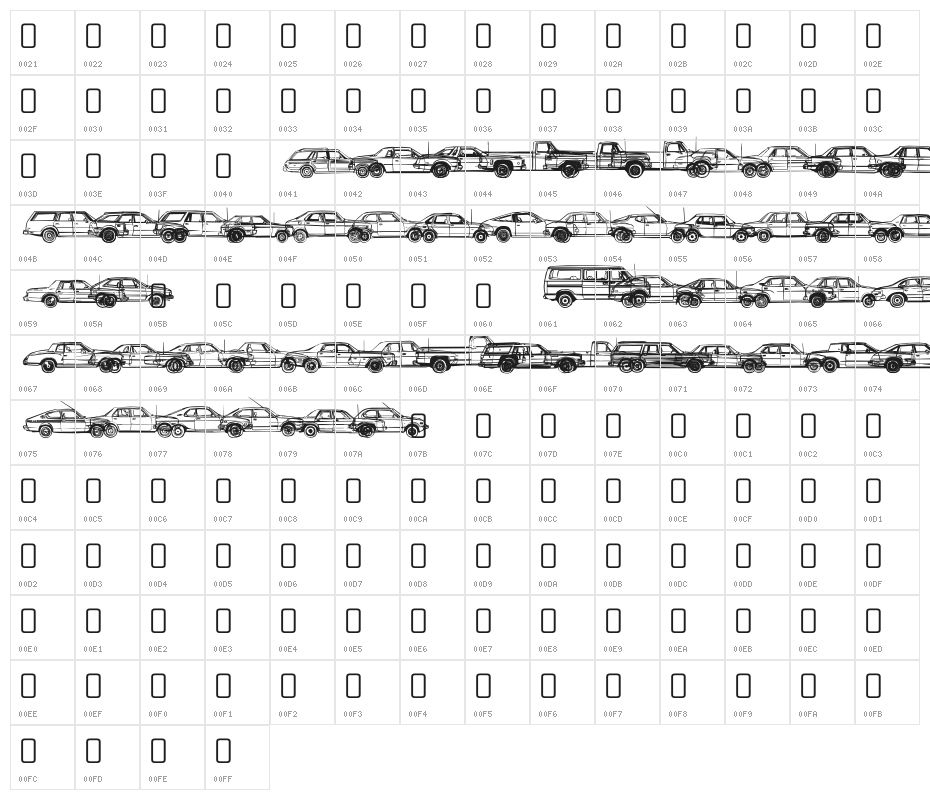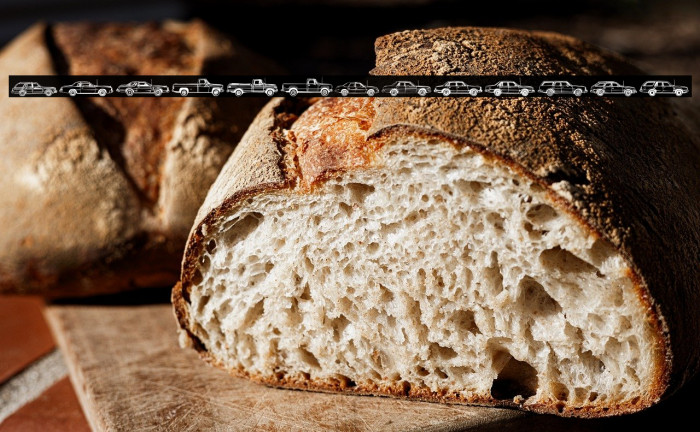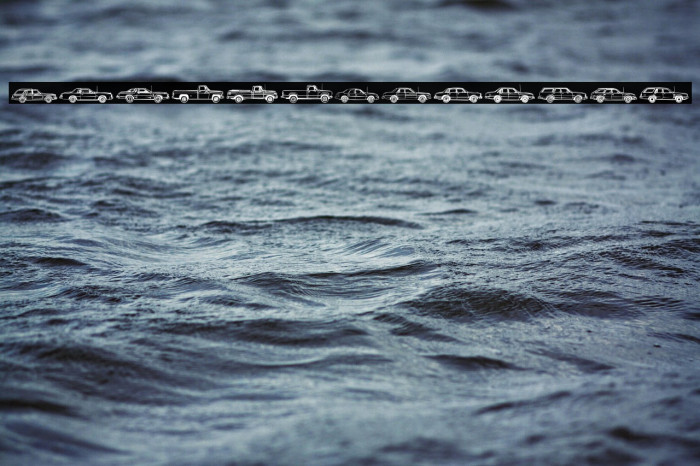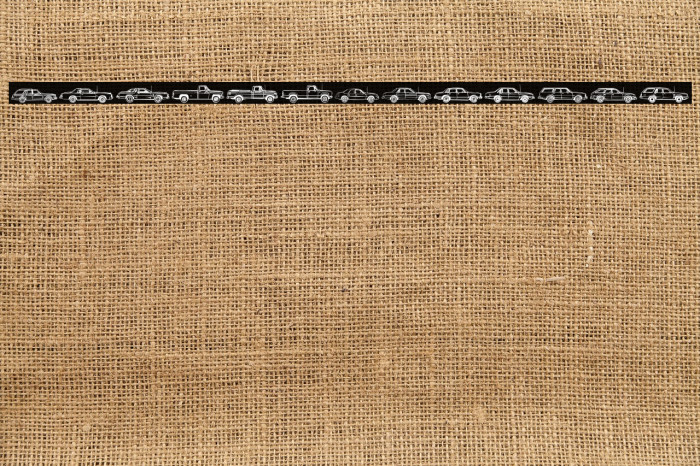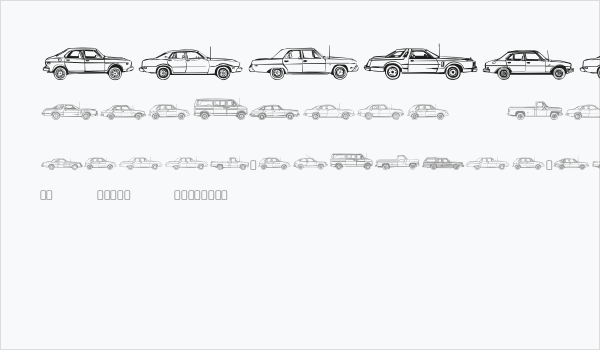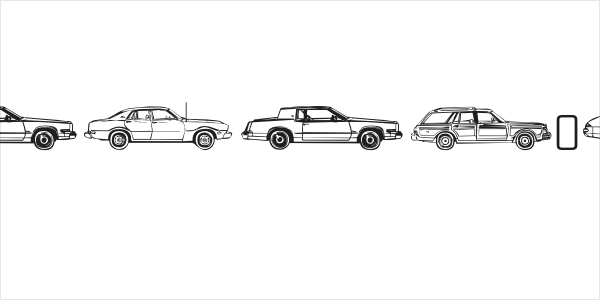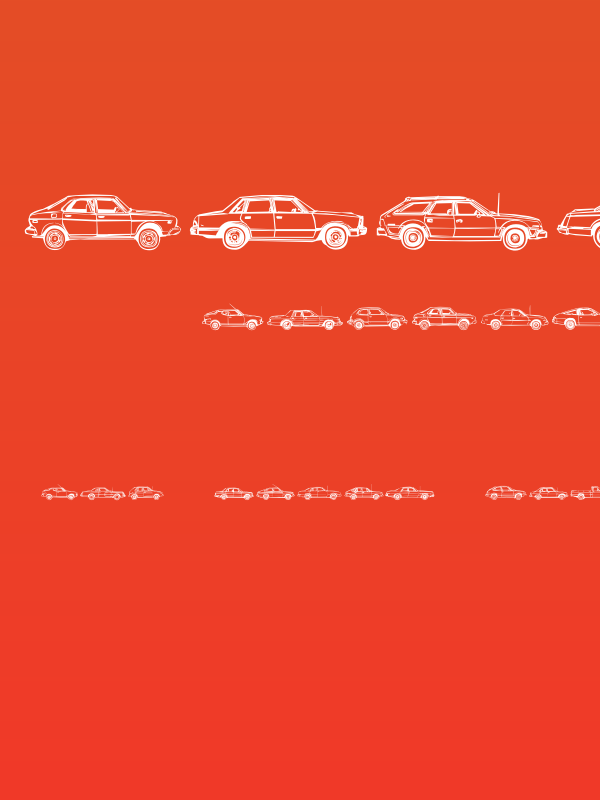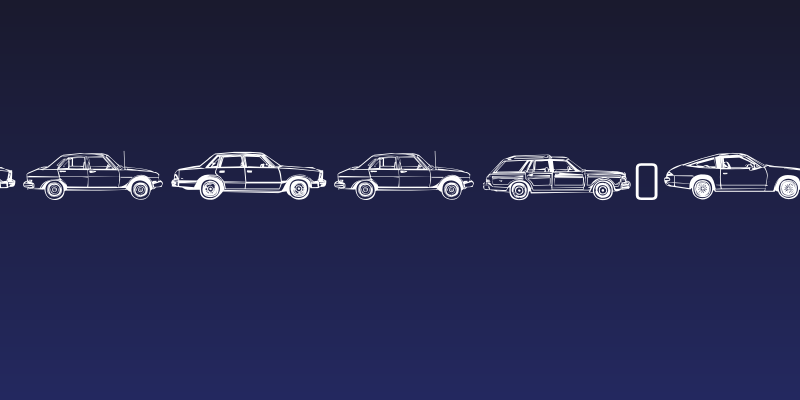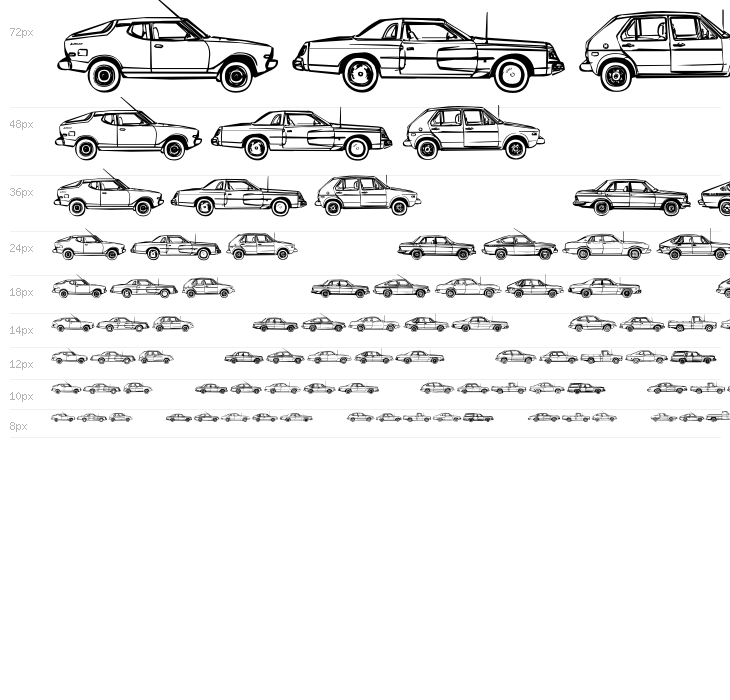
OilCrisisA-Regular Font
OilCrisisA-Regular Description
This is a decorative font featuring a series of vintage car illustrations. Each character is represented by a different car model, creating a unique and playful visual effect. The design is highly detailed, capturing the essence of classic automobiles with intricate line work. The font is not intended for traditional text but rather for creative projects where the imagery of cars can be utilized. The characters are evenly spaced, and the overall style is whimsical and thematic, making it suitable for niche applications.
| Use Case | Logos, Posters, Themed Designs |
| Proposed Projects | Ideal for automotive-themed posters, retro car show flyers, or creative design projects that require a playful and thematic touch. |